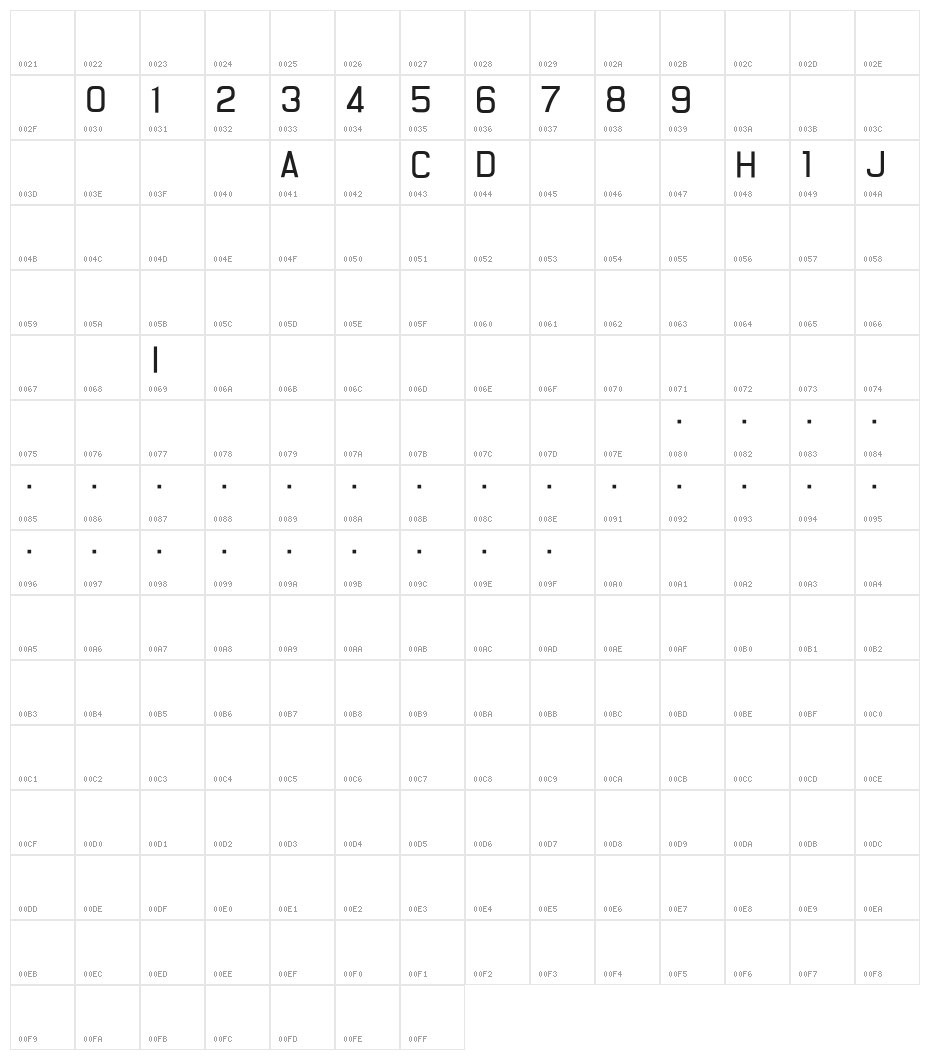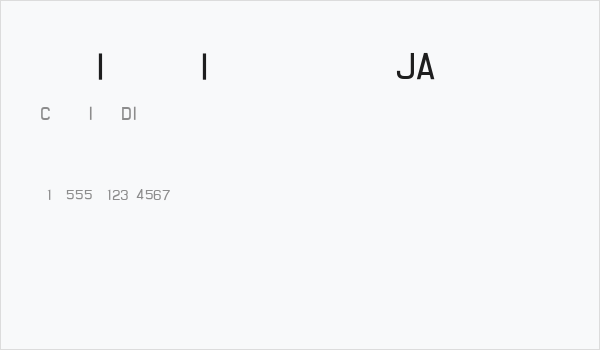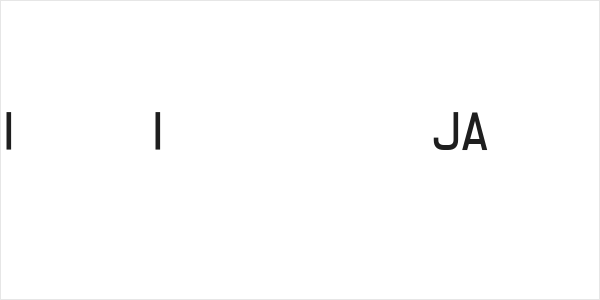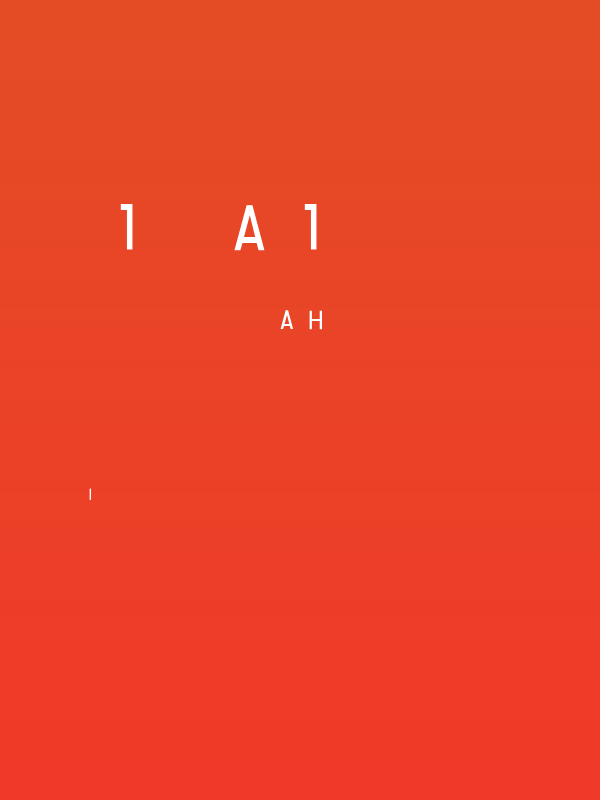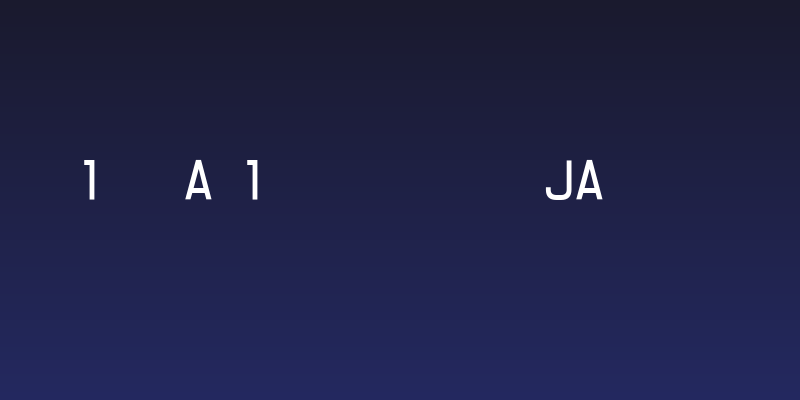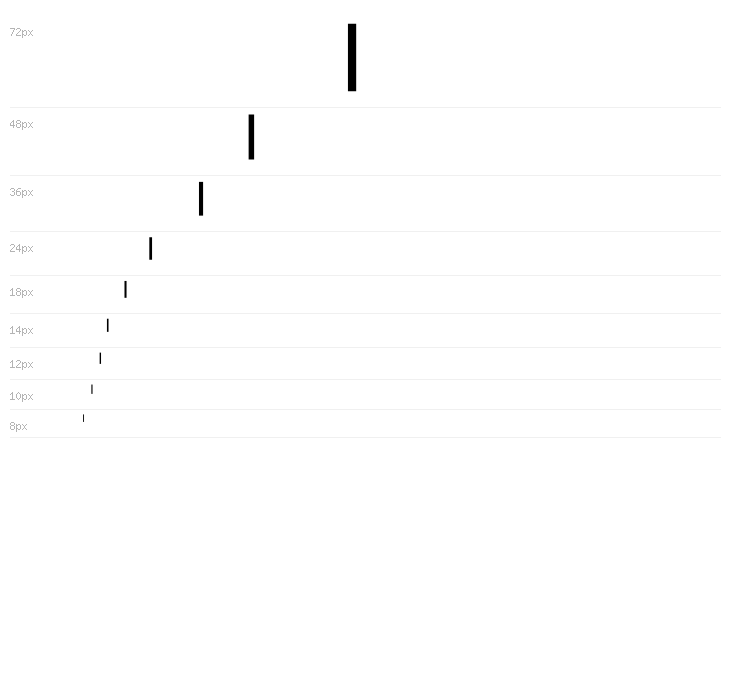
This font features a clean and modern design with a geometric structure. The characters are uniformly shaped, providing a sense of balance and precision. The uppercase letters are bold and slightly condensed, while the lowercase letters maintain a consistent height and width, ensuring readability. The numbers are clear and distinct, making them ideal for display purposes. The overall style is minimalistic, with a focus on clarity and functionality, suitable for various applications where legibility is key.
| Use Case | Signage, Technical documents, Digital interfaces |
| Proposed Projects | Ideal for use in signage, vehicle registration plates, technical documents, and digital interfaces where clarity and precision are essential. |